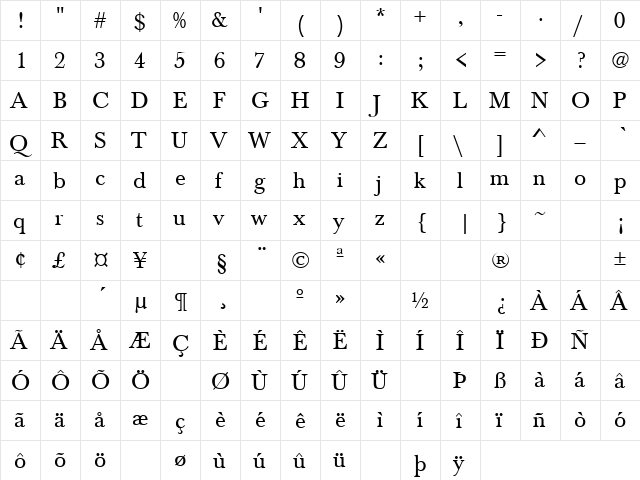
Think About It 1 Regular
Design Context for Think About It 1 Typeface
Think About It 1 is a composed and adaptable typeface that performs quietly and consistently across a wide range of design contexts. Its slender proportions lend an understated elegance to any composition.
Pro Tip: Pair Think About It 1 with a font of contrasting weight or personality to build a more expressive typographic hierarchy.